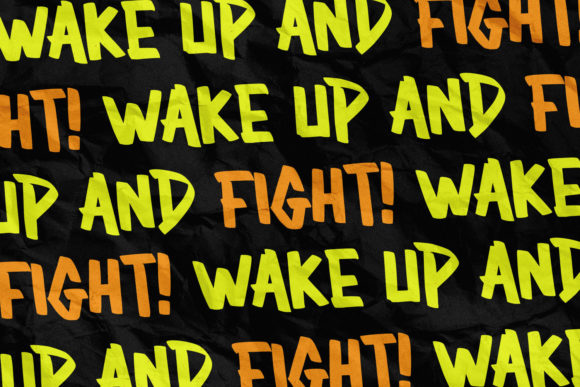
The Ultimate Display Font: Carlos Borgla Font
- ✨ Unique and quirky design: Carlos Borgla Font has a one-of-a-kind, chunky lettered style that’s perfect for making a statement.
- ✅ Highly legible: Despite its bold design, the font remains easy to read, even in smaller sizes.
- 💥 Attention-grabbing: This font is sure to turn heads and add a touch of personality to your designs.
- 🤔 Limited use cases: Due to its bold design, Carlos Borgla Font works best as a display font, and may not be suitable for body text or smaller sizes.
- ⚠️ Glyph limitations: While the font has a range of glyphs, it may not have every special character or symbol you need.
The Designer Inspiration Behind Carlos Borgla Font
Carlos Borgla Font was designed with the goal of creating a bold, eye-catching display font that’s both fun and functional. The designer aimed to craft a font that’s perfect for headlines, titles, and other creative projects where you want to make a statement.
| Font Name | Carlos Borgla Font |
| Author | creakokunstudio |
| What is Carlos Borgla Font best used for? | Carlos Borgla Font is best used as a display font for headlines, titles, and other creative projects where you want to add a bold, eye-catching touch. |
| Is Carlos Borgla Font suitable for body text? | No, due to its bold design, Carlos Borgla Font is not recommended for body text or smaller sizes. |